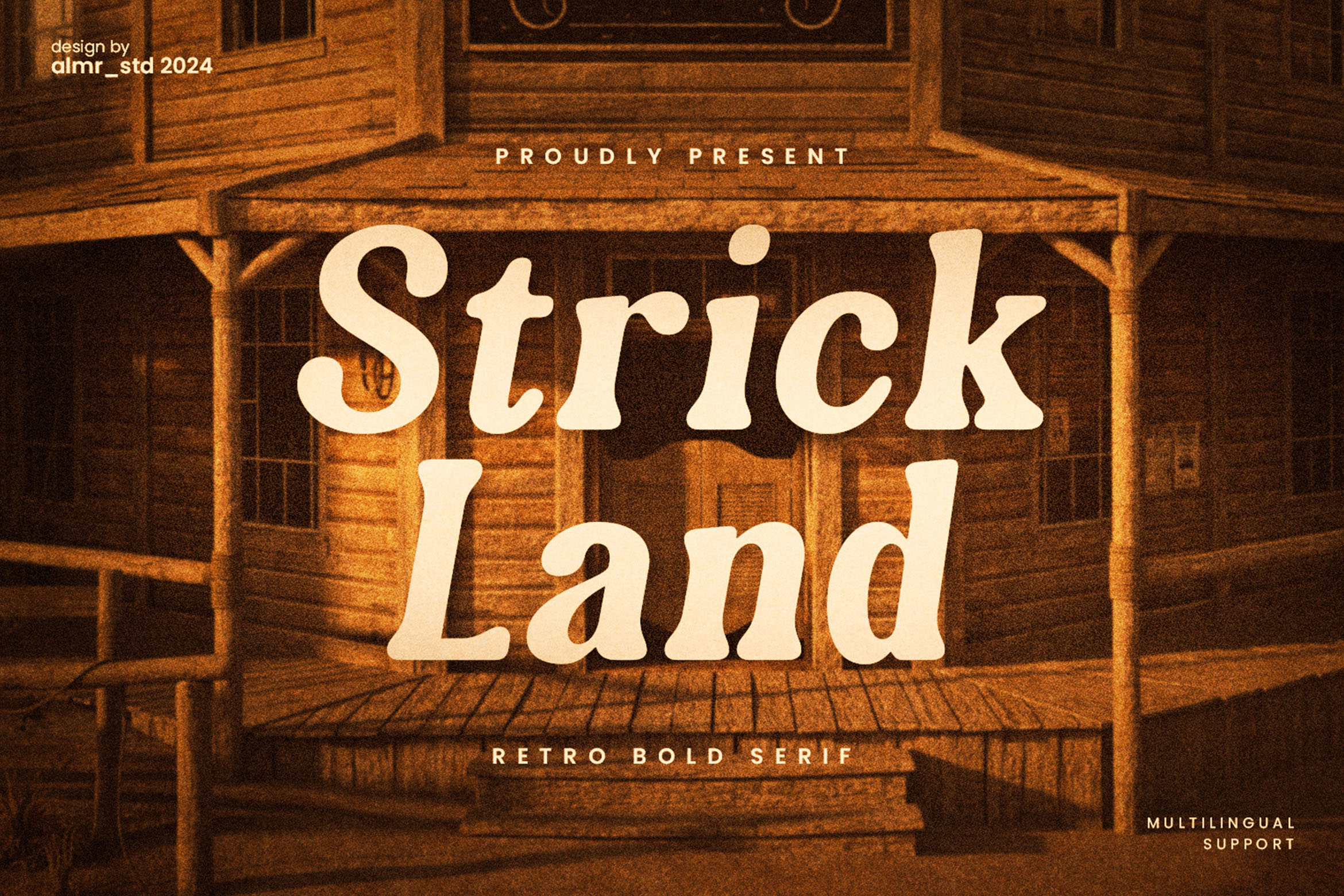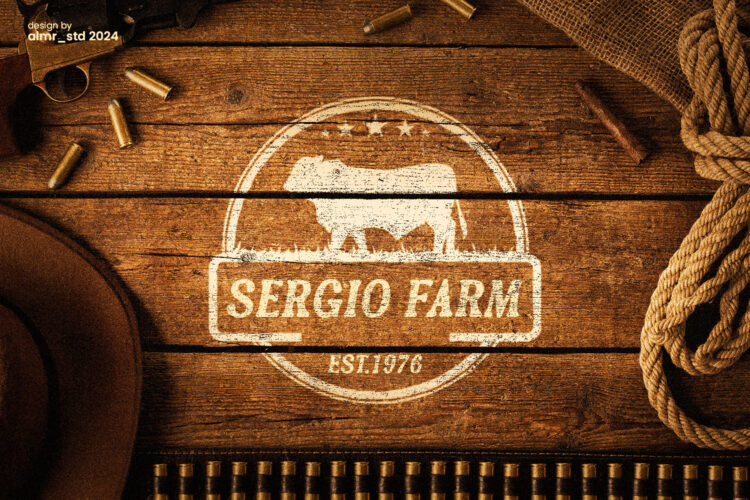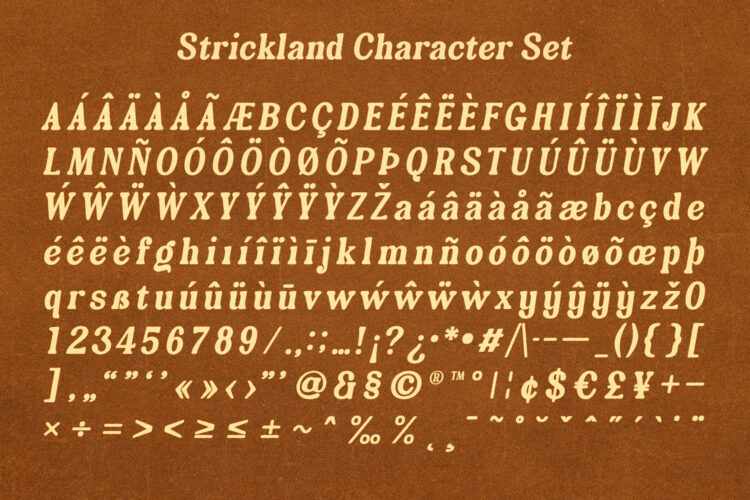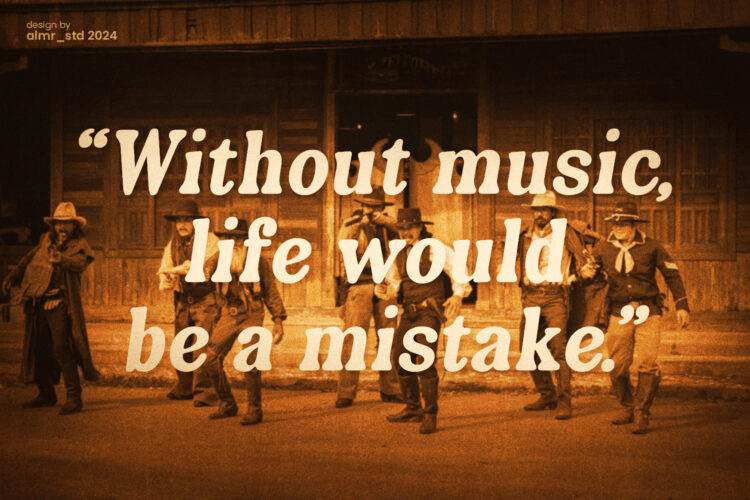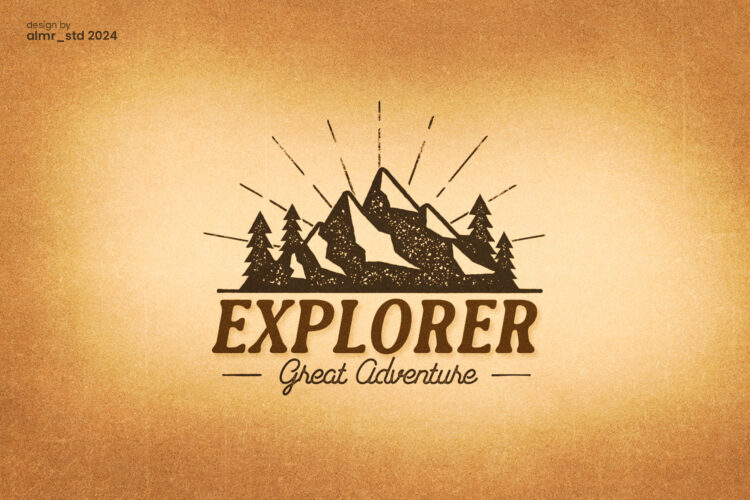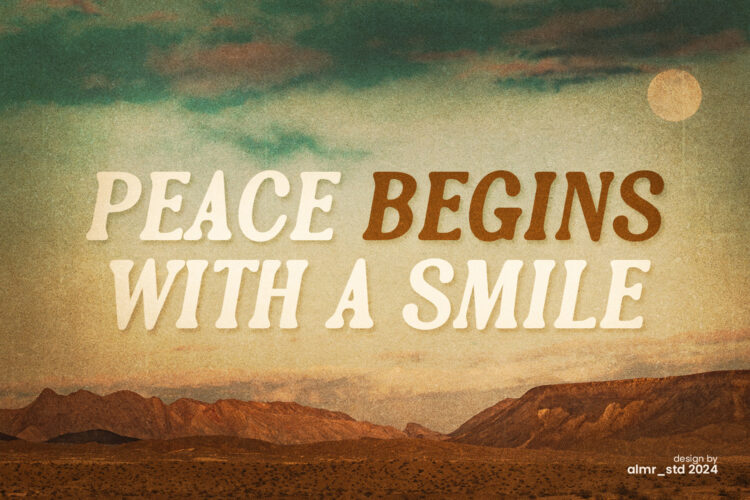
Introducing Strickland – Retro Bold Serif. Strickland is a Retro Bold Serif Font, elegant and simple font, best used as a display for headings, logos, branding, magazines, product packaging and invitations.
Strickland – Retro Bold Serif